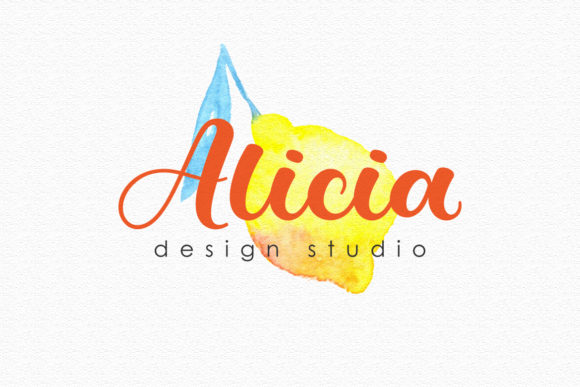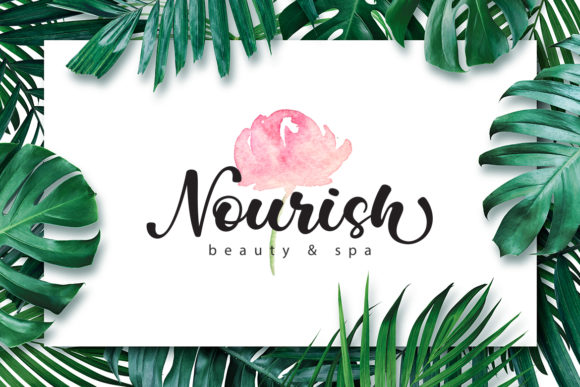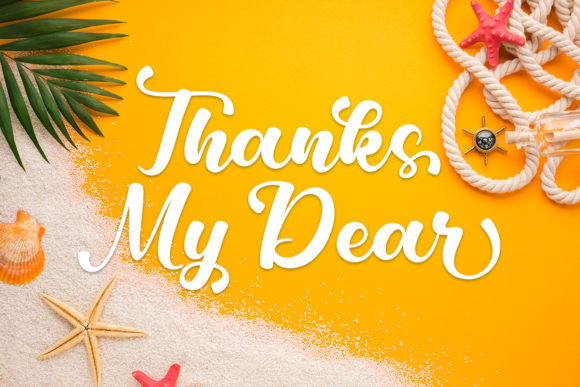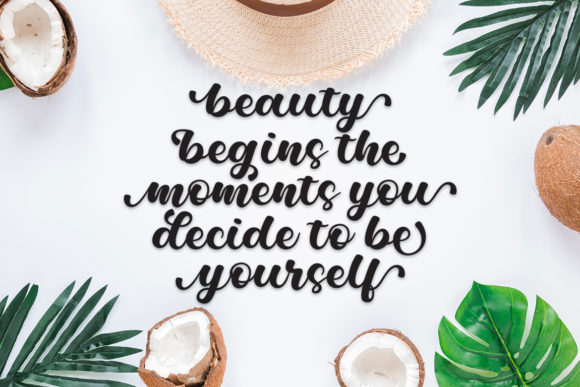
About Milkshake Scriptsweet Font
Milkshake Scriptsweet is an elegant and flowing handwritten font. It is PUA encoded which means you can access all of the glyphs and swashes with ease! It features a varying baseline, smooth lines, gorgeous glyphs and stunning alternates. It maintains its classy calligraphic influences while feeling contemporary and fresh. Fall in love with this font and bring your projects to the highest levels!